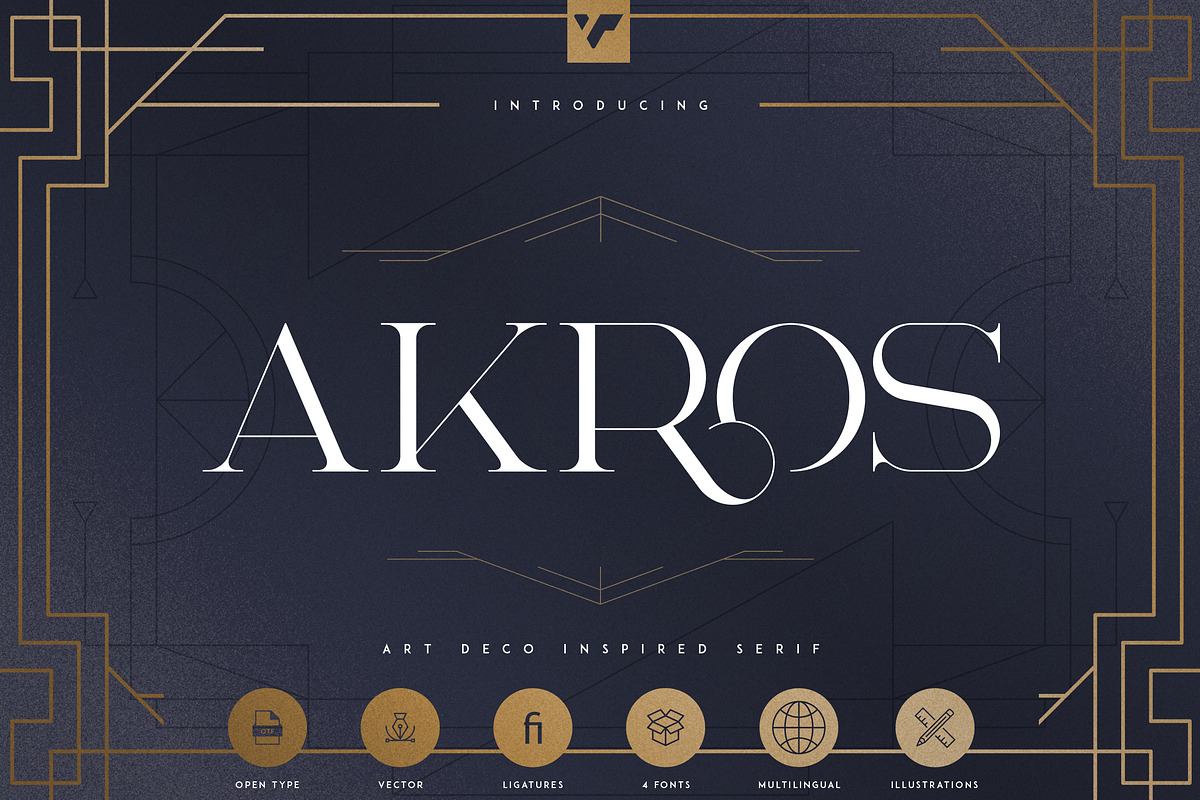
Akros - Art Deco Serif + Extras Free Download
Akros - Art Deco Serif + Extras Free Download is a striking and elegant typeface inspired by the bold, geometric designs of the Art Deco era. Featuring clean lines, sharp serifs, and distinctive letterforms, this font is perfect for creating sophisticated branding, logos, packaging, posters, and editorial designs with a touch of vintage luxury.
Included with the font are additional extras that allow for even more creative flexibility, such as alternate characters and design elements that help elevate your typography and create unique layouts.